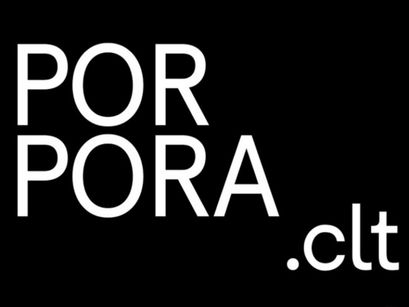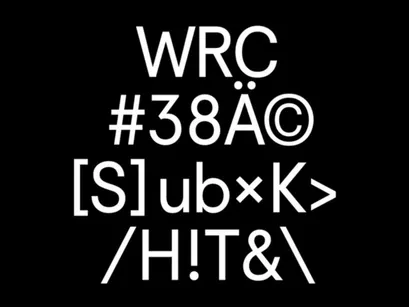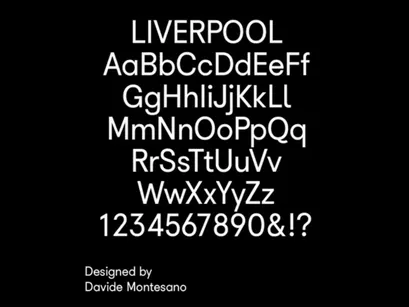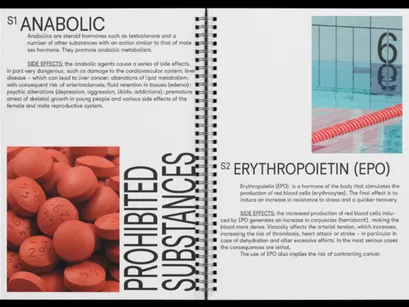
Porpora: Free geometric font
Porpora is a free for commercial use typeface designed by Davide Francesco Montesano (https://dribbble.com/DavideBaratta ), a member of the Italian open source font cooperative Collletttivo.
This font has elongated ascenders and descenders, it contains a set of glyphs, and provide multilingual support.